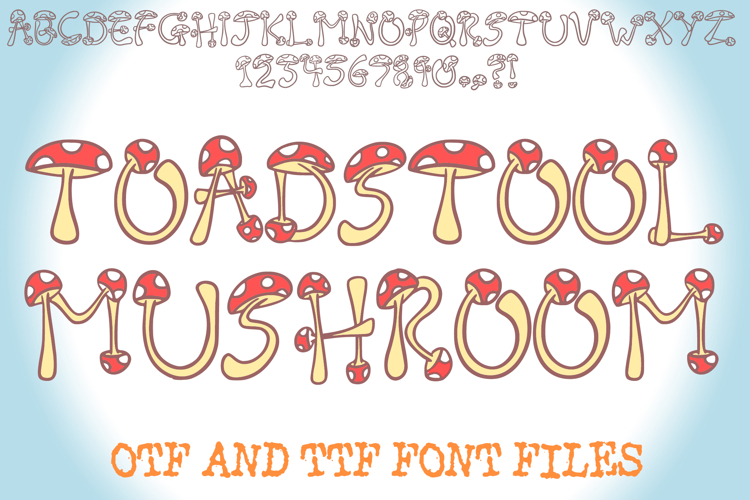
Toadstool Mushroom Cartoon Lettering ABC Font Type
Bring a touch of forest magic to your designs with the Toadstool Mushroom Font!
This charming hand-drawn typeface is inspired by cute toadstools and woodland whimsy — each letter looks like it’s sprouting straight from a fairytale forest. With its rounded, playful shapes and mushroom-cap details, this font adds a delightful organic feel to any creative project.
Perfect for cottagecore and fairycore designs, children’s book titles, stickers, logos, invitations, and craft projects, the Toadstool Mushroom Font will make your text come alive with cozy, enchanted vibes.
If you love nature-inspired, cute, and quirky fonts, Toadstool Mushroom Font is the perfect addition to your collection!